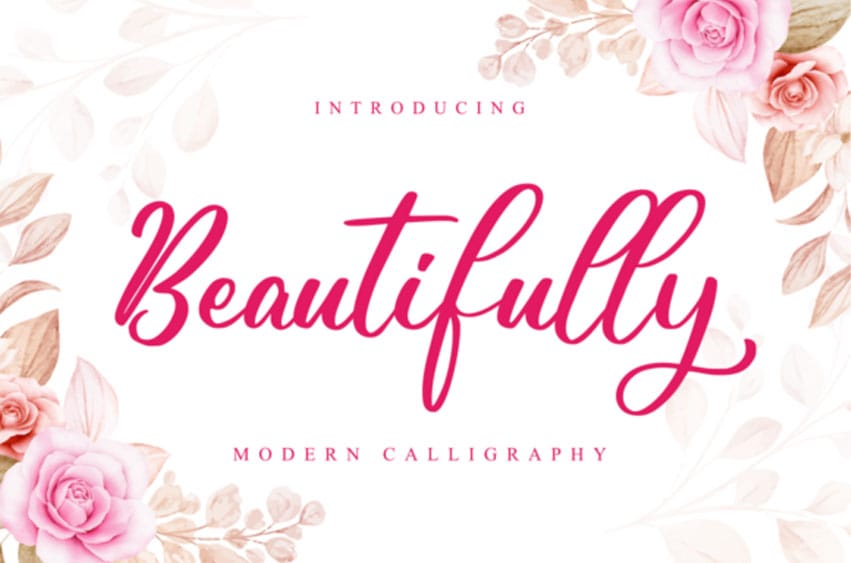
Beautifully Calligraphy Font
Beautifully Calligraphy Font is an incredibly beautiful script font. It has a classy, elegant and modern look that can be used for logos, branding, invitations, stationery, wedding designs, social media posts, and much more!
This font is PUA encoded which means you can access all of the cute glyphs and swashes with ease! It also features a wealth of special features including alternate glyphs and ligatures.